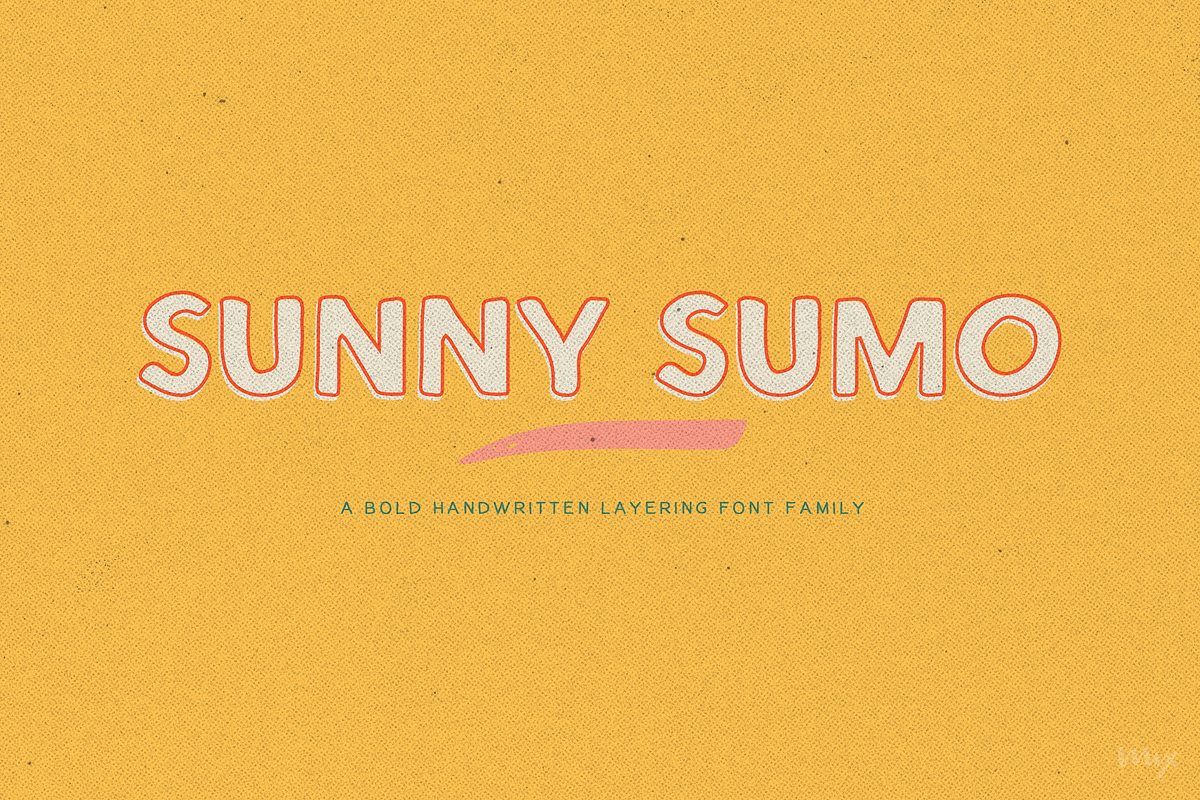
The Sunny Sumo — A Layering Sans Serif Free Download is a modern and versatile typeface designed to bring a bold, layered effect to your designs. With its clean and geometric shapes, this font allows you to create multi-layered text, perfect for creating impactful headlines, logos, and designs that need to stand out. Whether you're working on branding, posters, or digital content, Sunny Sumo brings a stylish, contemporary edge to your creative projects.
Sunny Sumo — A Layering Sans Serif Free Download is ideal for designers looking to add depth and dimension to their projects. Its layering feature makes it perfect for attention-grabbing titles and creative compositions. Download this unique font today and elevate your designs with its bold and modern style!